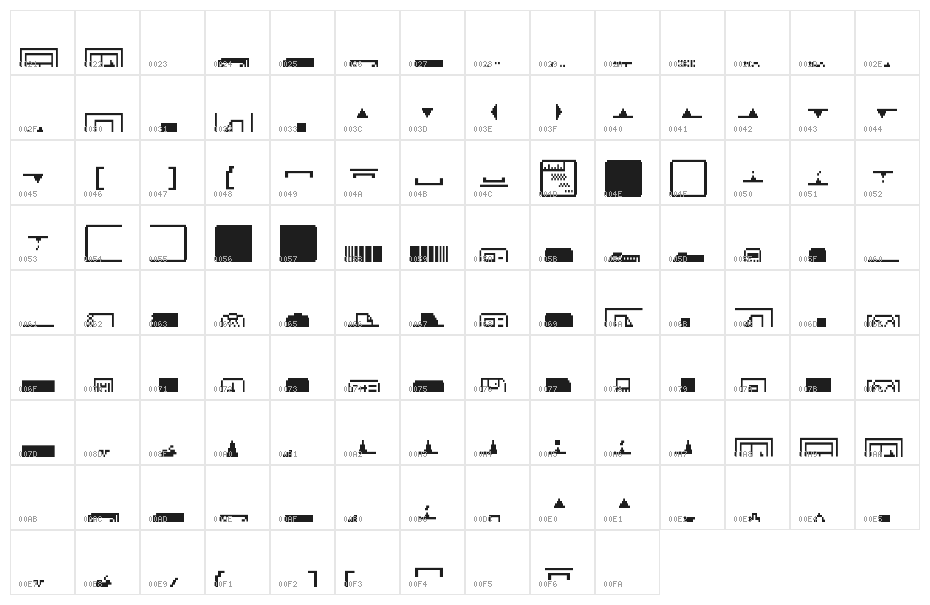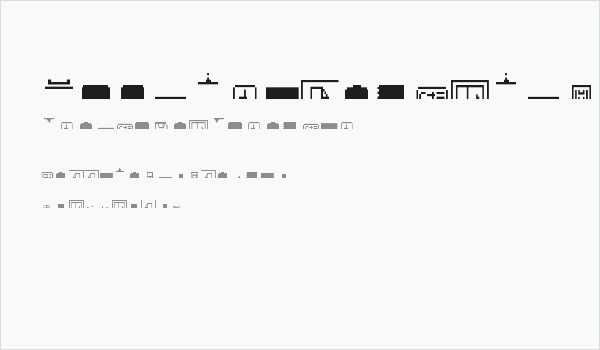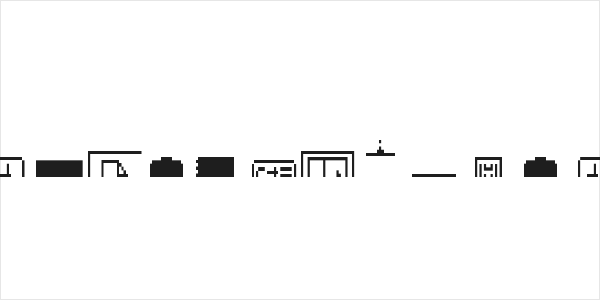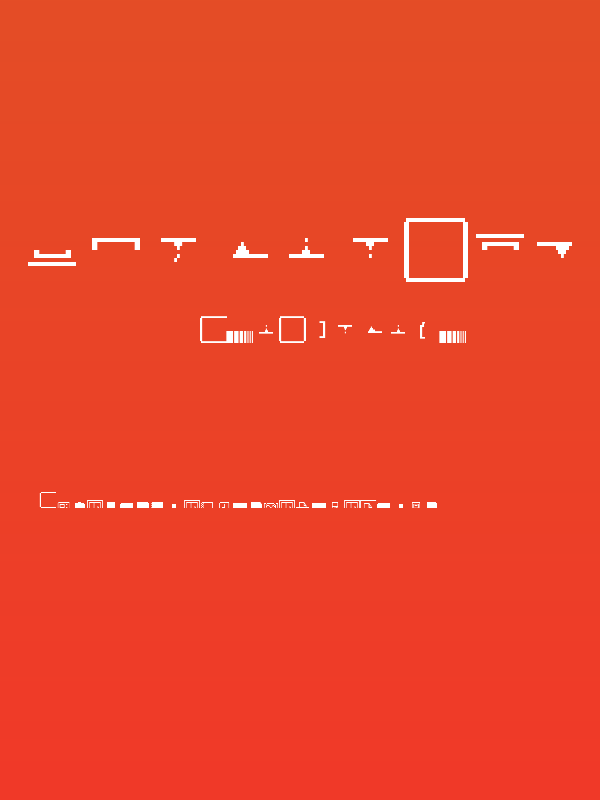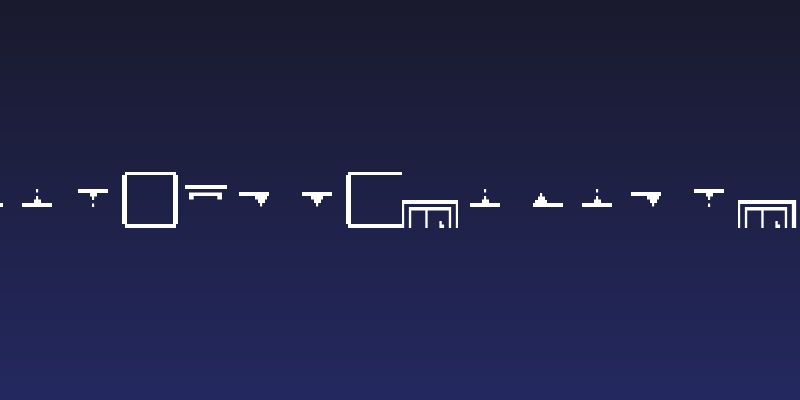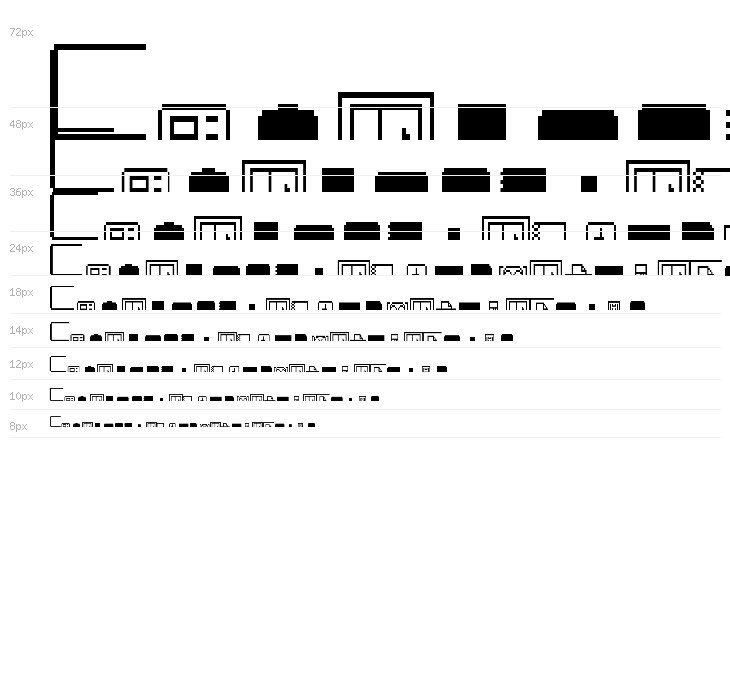
LisaProject Paper 2X3Y Font
A highly abstract and decorative font with geometric shapes and minimalistic design elements.
Overall StyleModern, Abstract
Use CaseLogos, Artistic displays
Proposed ProjectsArt projects, experimental designs, abstract posters.